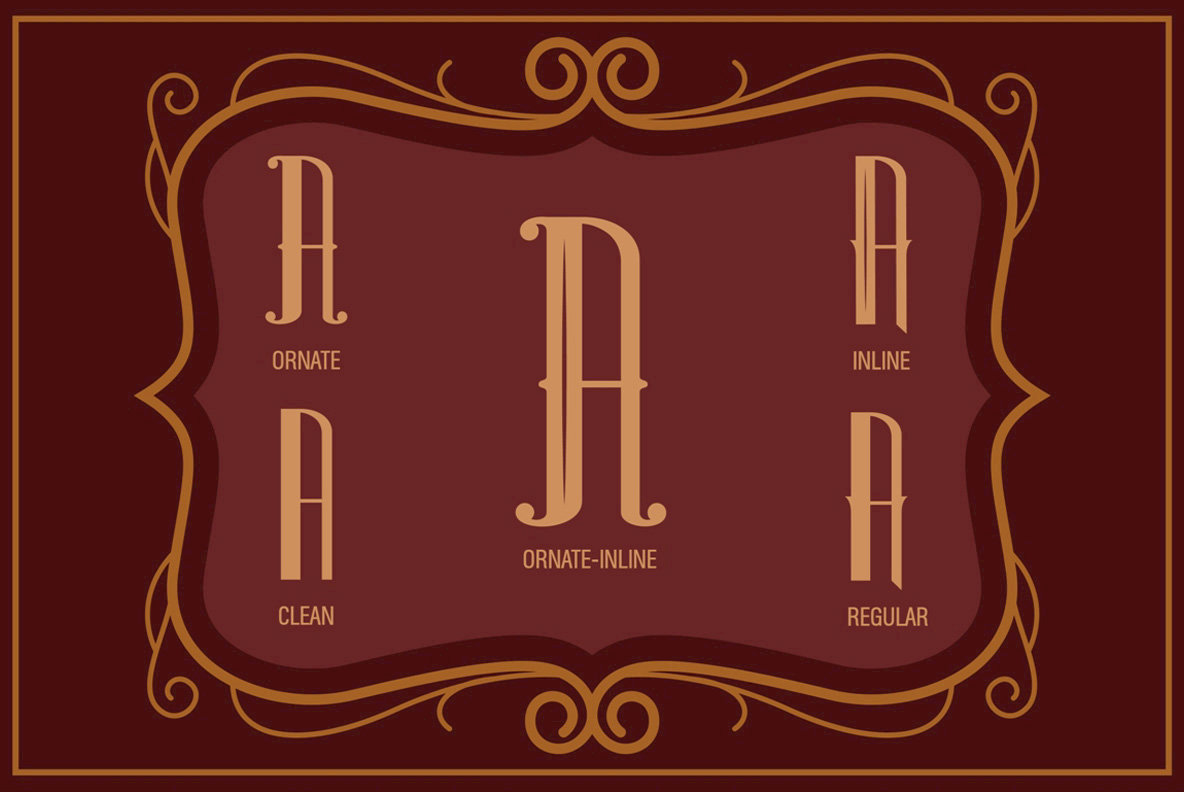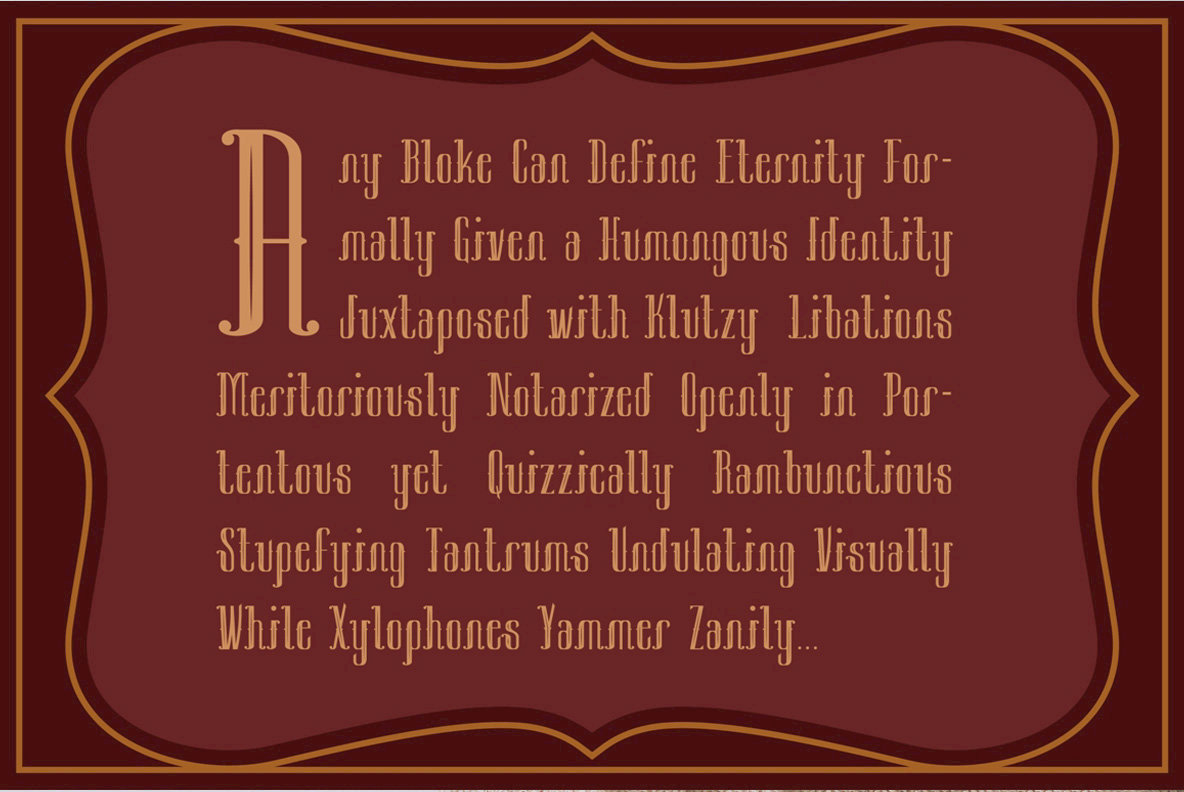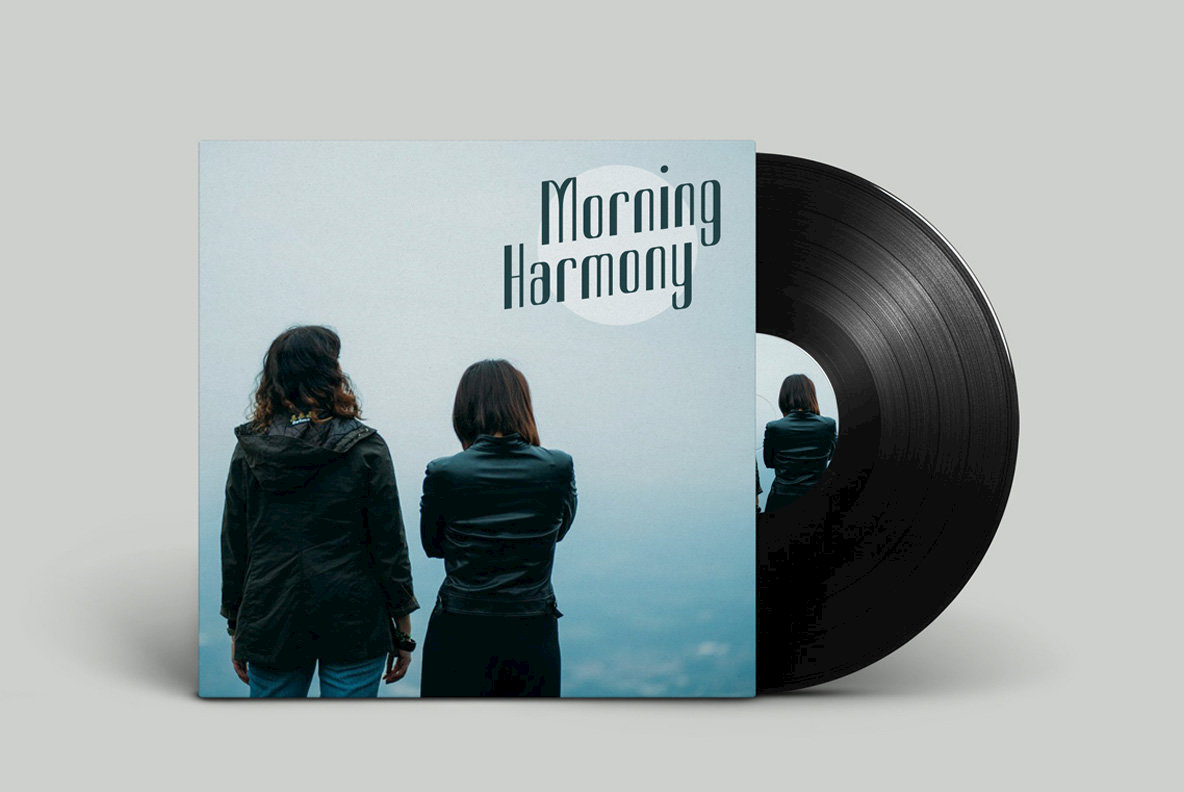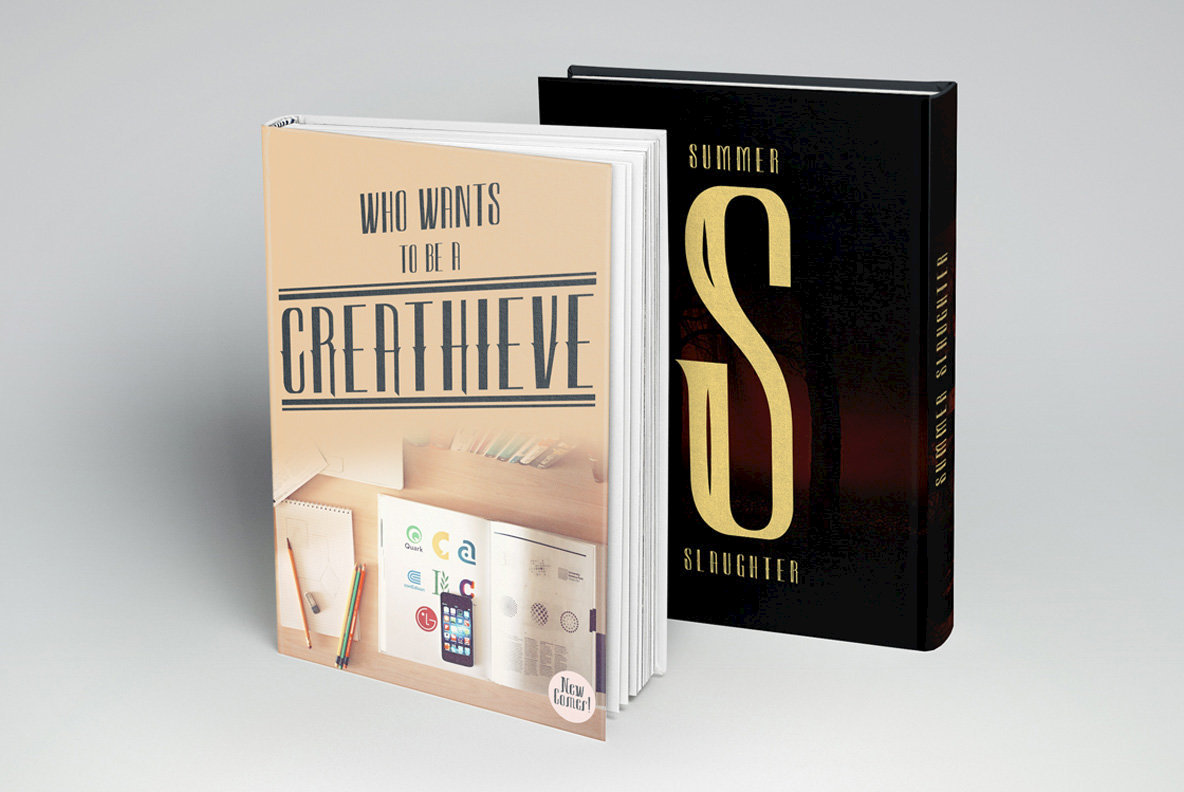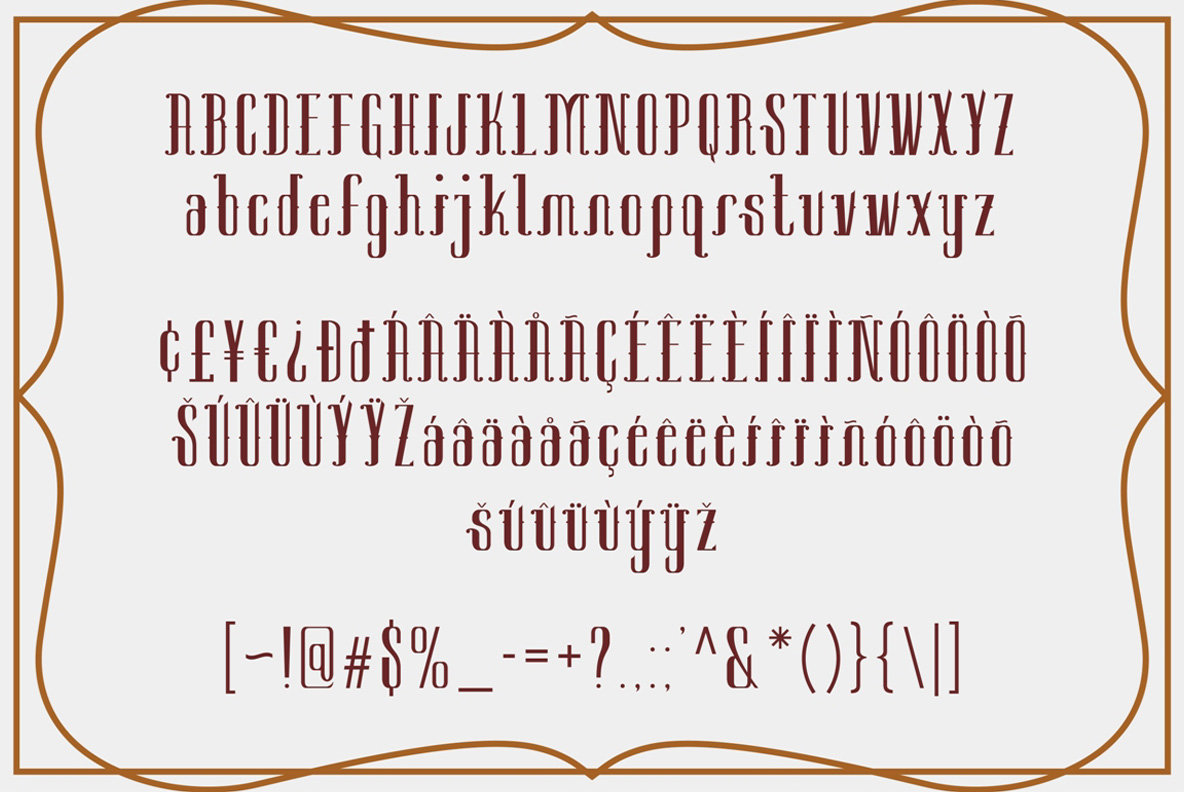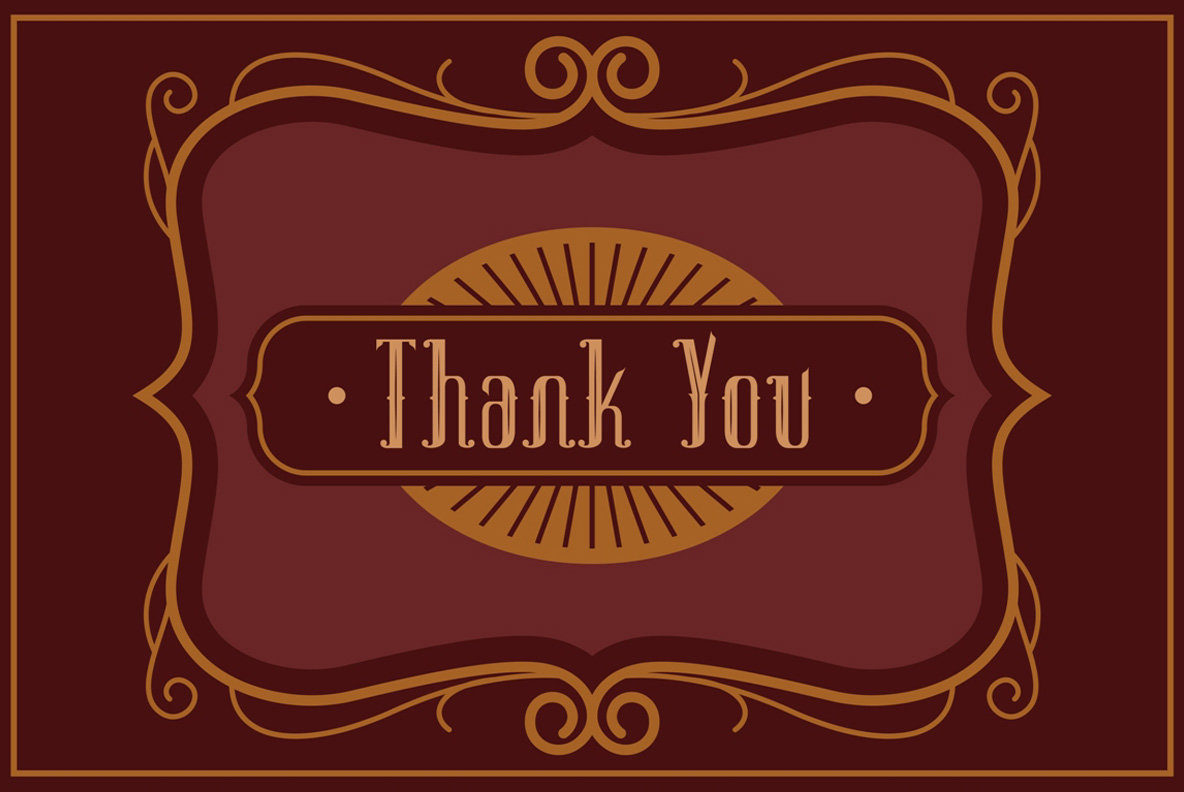
Sambeltigo Font
Sambeltigo, a versatile typeface featuring five distinct styles, seamlessly enhances both minimalist and vintage design projects. Whether used for compelling displays or captivating headlines, Sambeltigo adapts to various aesthetic needs.Sambeltigo: A Multifaceted Typeface for Versatile Design